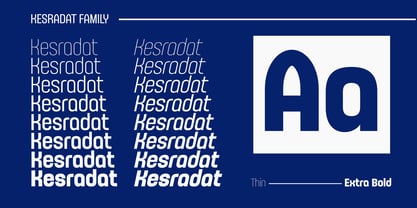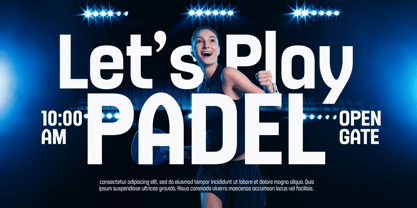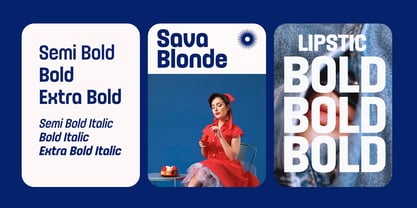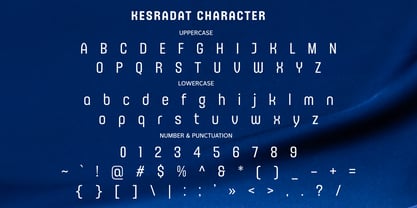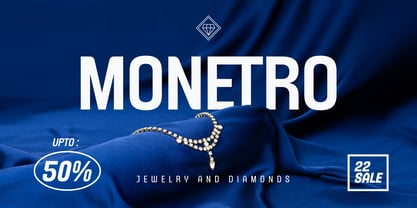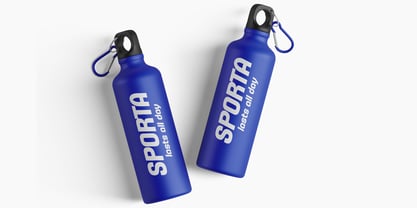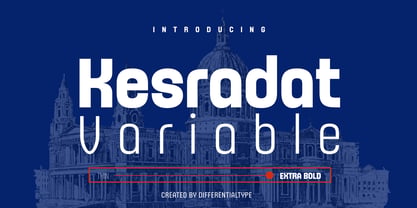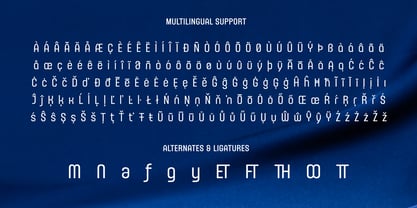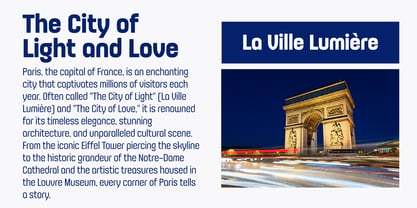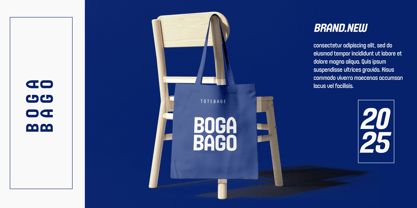
Kesradat Variable
by Differentialtype
The Kesradat Variable Font Family was designed by Sidik Sidik and published by Differentialtype. Kesradat Variable contains 1 styles. More about this family
Introducing Kesradat Variable, a versatile and elegant sans-serif font designed to meet your every design need. Ranging from the light and modern Thin to the strong and daring Extra Bold, Kesradat Variable offers limitless flexibility. Of course, each style comes with an italic version for a dynamic touch. This font ensures optimal readability at any size, making it a perfect choice for long-form document text, eye-catching headlines, and clean, efficient user interface designs. Kesradat Variable is more than just a font—it's a complete branding solution. With its neutral yet characterful presence, this font can adapt to various brand personas, from professional and serious to creative and cheerful. Use Kesradat Variable to craft a timeless logo, create captivating product packaging, or design consistent marketing materials. Kesradat Variable presence will elevate any project, providing a professional and attractive touch that will make your work stand out from the rest.
Designers: Sidik Sidik
Foundry: Differentialtype